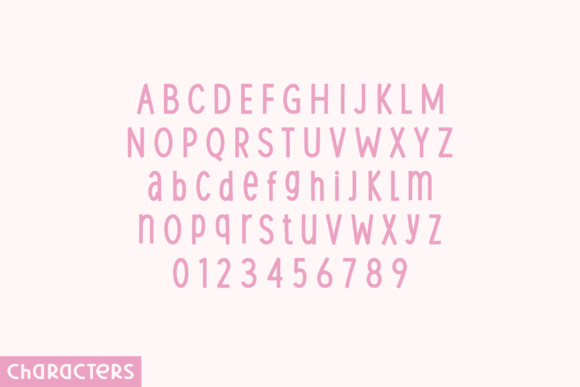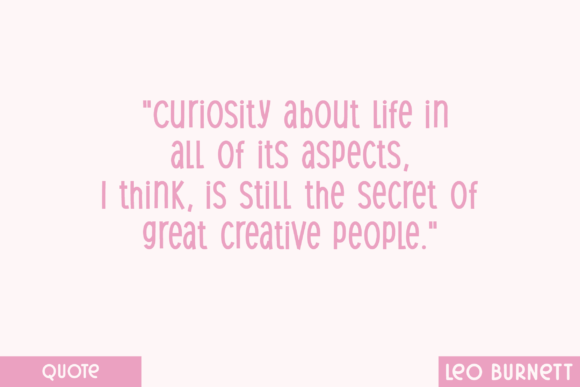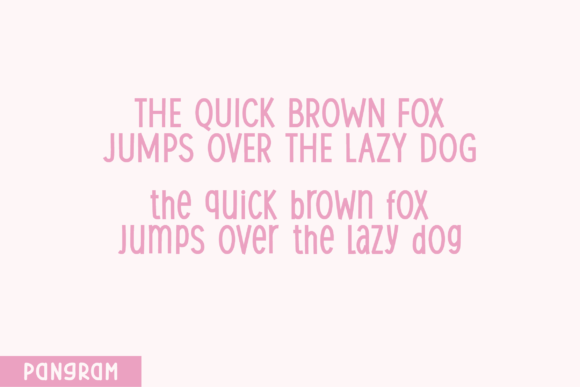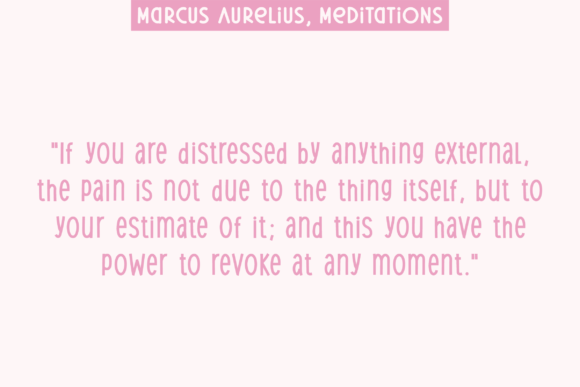
Introduction to Moremallow Font
Do you remember the feeling of scribbling down your thoughts and ideas on a piece of paper? The ink bleeding through the page, the imperfections and quirks of your handwriting making each word unique and authentic. This is exactly what the Moremallow Font captures – the essence of natural handwriting, with all its imperfections and charm.
As a designer, you’re always on the lookout for that special something that sets your creative project apart. And that’s exactly what the Moremallow Font offers – a high-quality, free download that adds a touch of authenticity to any design. With its transparent background and unique texture, this font is a valuable resource for designers looking to add a personal touch to their work.
Key Features of Moremallow Font
- High-quality design resource perfect for creative projects, offering a unique and stylish look.
- Unique characteristics include a modern, whimsical feel and a wide range of expressive styles, making it ideal for creative projects.
- Designed to be versatile and adaptable, the Moremallow Font is perfect for use in logos, typography, and other design elements.
Honest Review: Moremallow Font
I recently had the chance to work with the Moremallow Font, and I must say, it’s a great addition to my design resources. As a designer, I’m always on the lookout for high-quality fonts that can elevate my creative projects.
What works well: ✨ The Moremallow Font has a unique and playful feel to it, making it perfect for projects that require a touch of whimsy. The font is also incredibly versatile, with a range of weights and styles that can be used to create a variety of different looks. Additionally, the font is a free download, which is always a bonus.
- Wide range of weights and styles to suit different design needs
However, I did notice a few limitations: ⚠️ The font doesn’t come with a lot of character support, which can make it difficult to use in projects that require non-English characters. Additionally, the font can be a bit difficult to read at very small sizes.
Overall, I’m really impressed with the Moremallow Font. It’s a great addition to my design resources, and I’m excited to see how it can be used in future creative projects.
The Moremallow Font is perfect for various creative projects, such as:
- Wedding invitations and decorations
- Branding materials and marketing materials
- Artistic typography and graphics